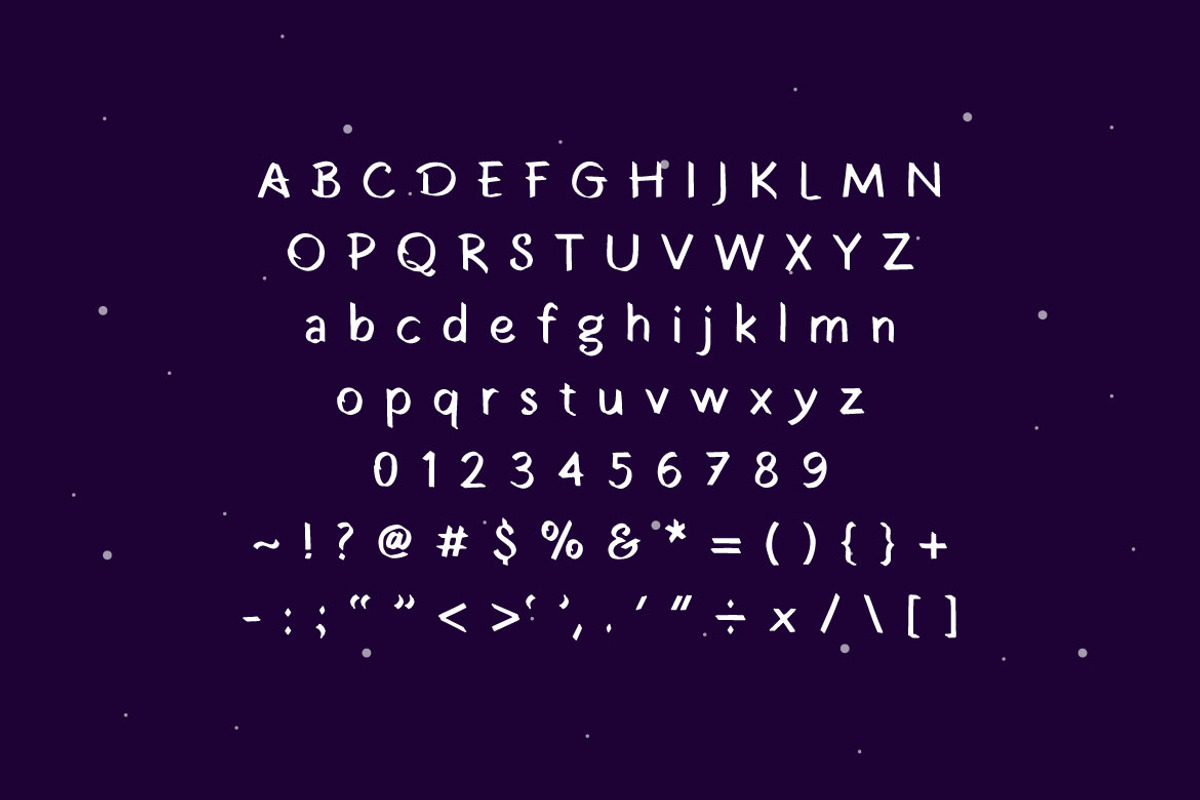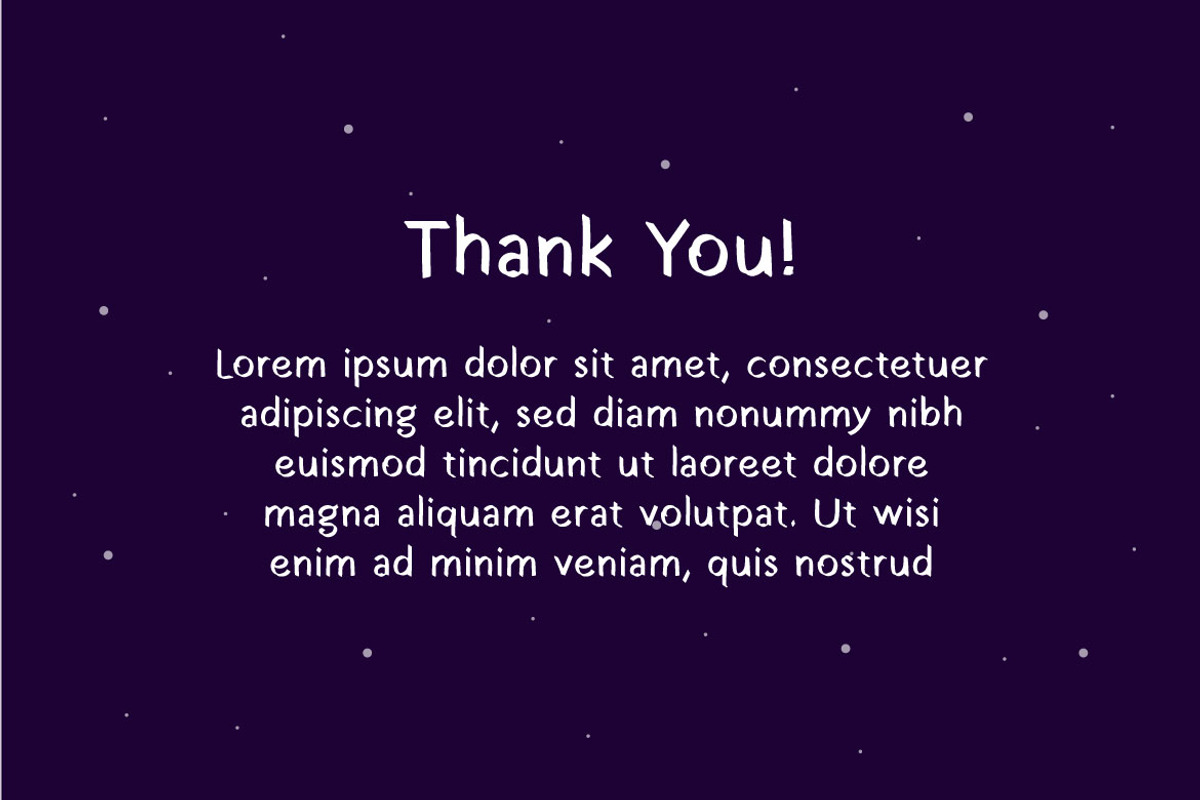
Aries Font
ARIES is a modern display font. This font brings modern futuristic ambience in each word. It can be used in any works such as book cover, music cover, children book, poster, advertisement, social media content, logo and many more.
Aries Sans Serif Font